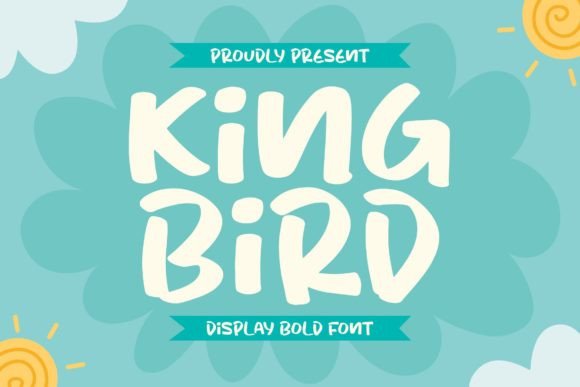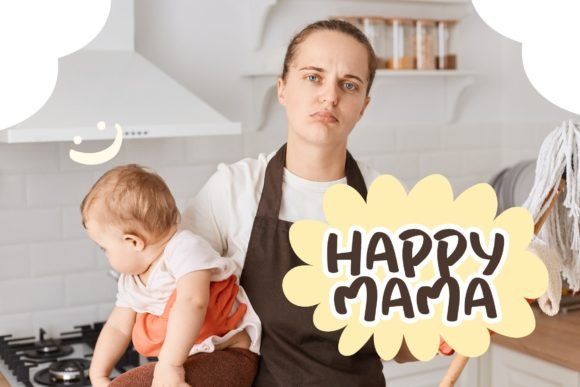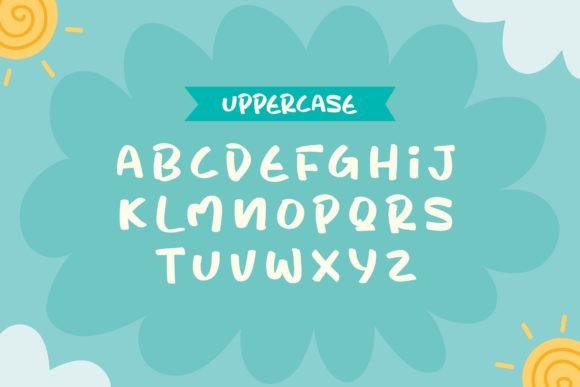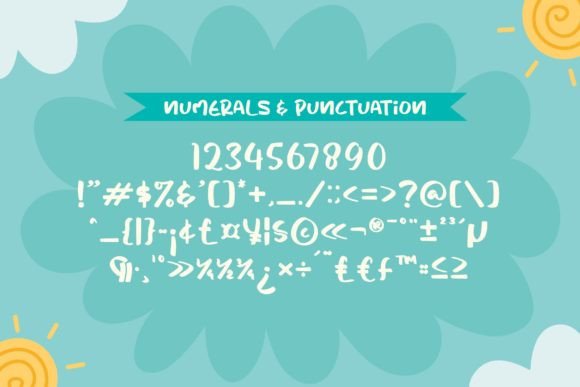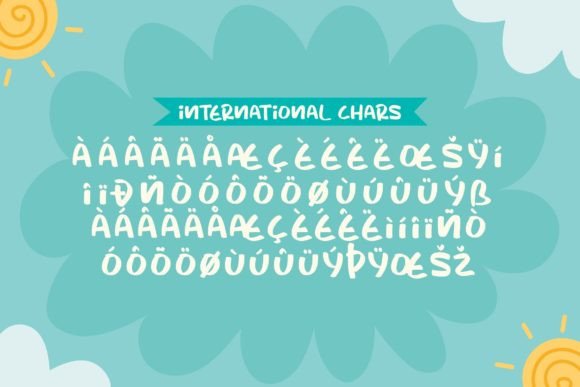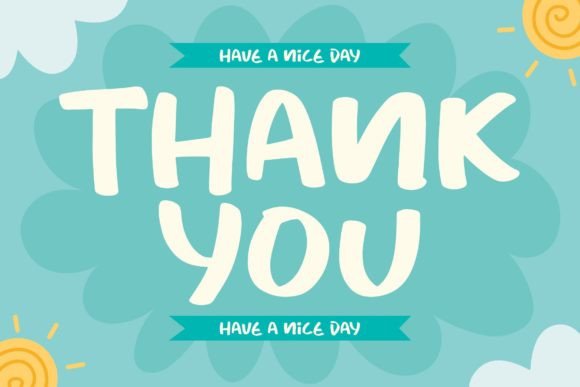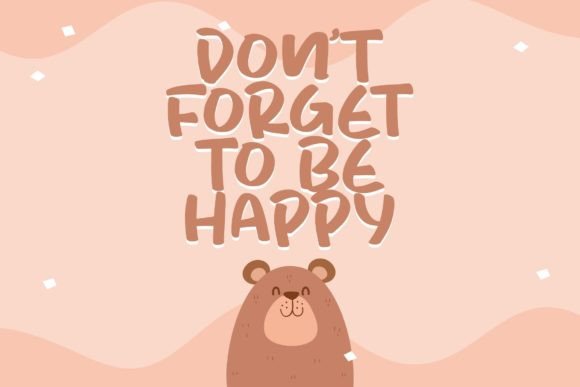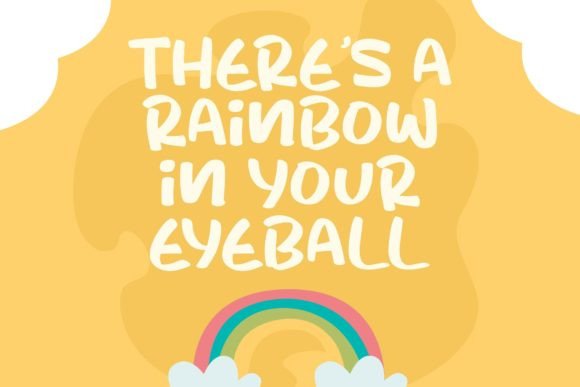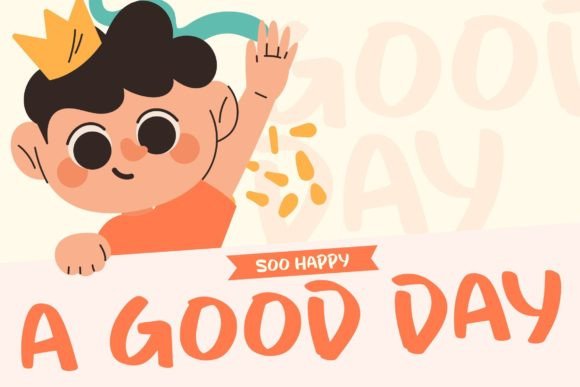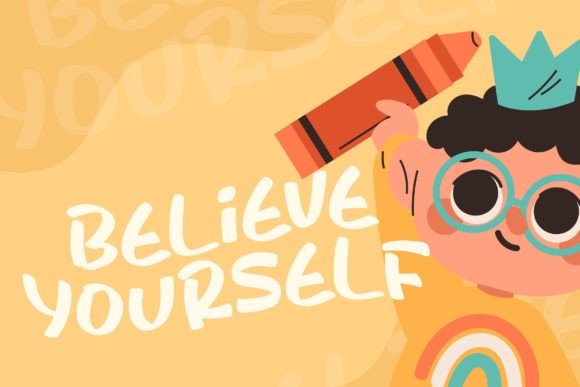
King Bird Font
About King Bird Font
King Bird is a bold and expressive font that commands attention with its thick and solid lines, ensuring easy readability. The conservative bends in its letterforms contribute to a balanced design that isn’t overwhelming to the eyes. This font strikes a harmonious fusion between playfulness and professionalism, making it a versatile choice for a wide range of design projects.
The boldness of King Bird lends itself well to creating impactful headlines, titles, and focal points within your designs. Its expressive nature allows for a bold statement without sacrificing clarity, making it suitable for both digital and print applications.
The thoughtful balance between playful elements and a professional demeanor makes King Bird a reliable choice for various design contexts. Whether you’re working on branding, advertising, or editorial projects, this font offers flexibility and adaptability.
King Bird’s design elements provide a solid foundation for creating visually striking compositions. Its bold and expressive nature ensures that your designs stand out while maintaining a sense of sophistication.
In summary, King Bird is not just a font; it’s a dynamic design tool that adds impact to your projects. Its bold and expressive qualities, coupled with a balanced aesthetic, make it a go-to choice for designers seeking versatility and visual appeal in their typographic choices.